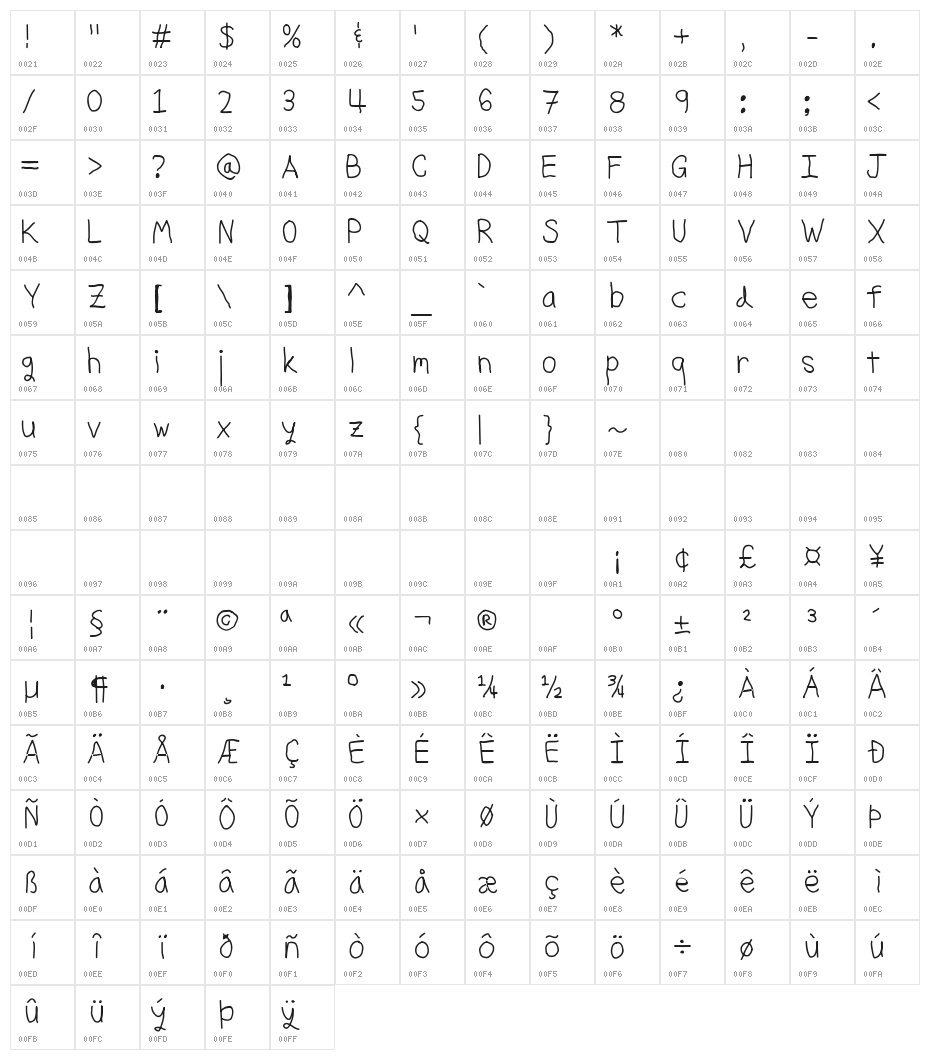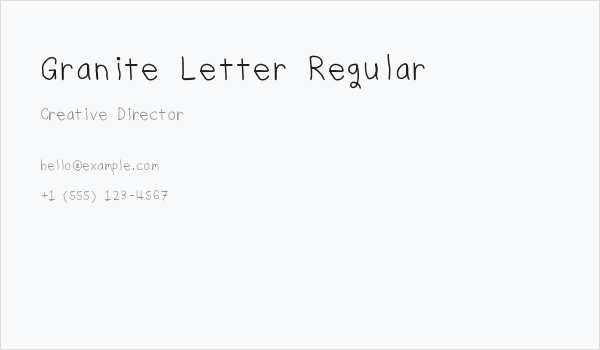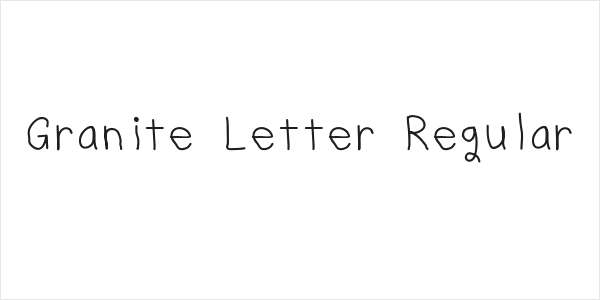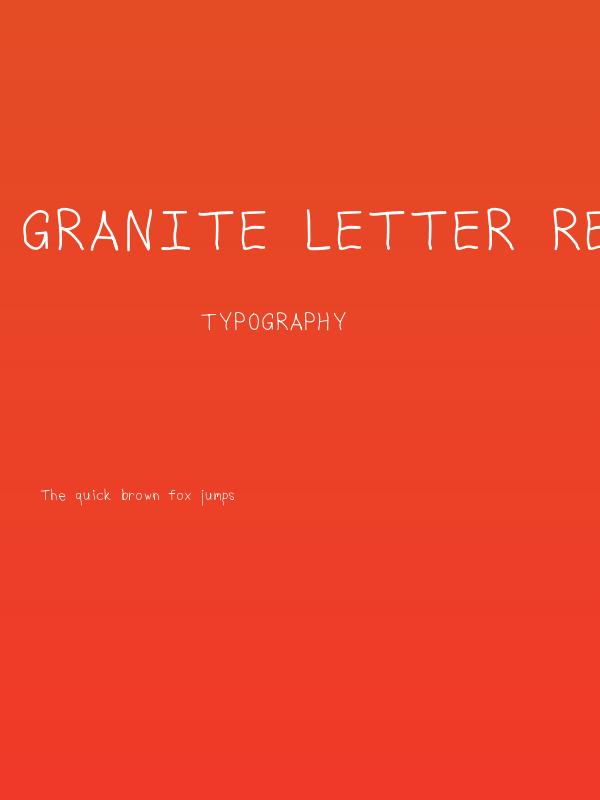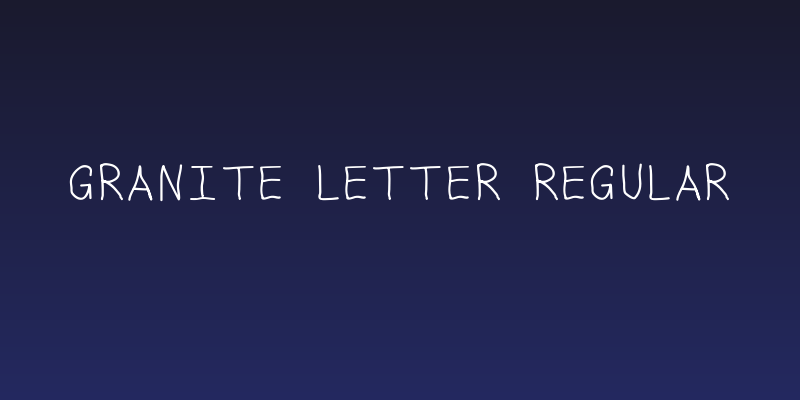
Granite Letter Regular Font
Granite Letter Regular Description
This font features a playful and casual handwritten style, characterized by its irregular strokes and slightly uneven baseline. The letters have a whimsical quality, with some characters exhibiting unique loops and curves that add to its charm. The overall appearance is informal and friendly, making it suitable for projects that require a personal touch. The font maintains a consistent line weight throughout, providing a clean and legible look despite its quirky nature. Its simplicity and approachability make it versatile for various creative applications.
| Proposed Projects | Ideal for greeting cards, children's books, personal blogs, and informal branding. |